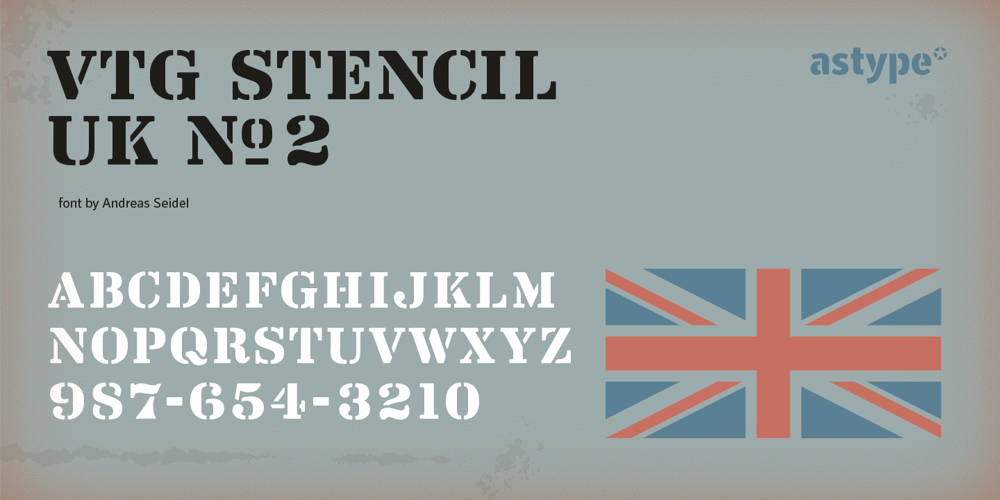
Vtg Stencil UK No. 2 Font Family was designed by Andreas Seidel and published by astype. Vtg Stencil UK No. 2 contains 1 styles and family package options. The Vtg Stencil series of fonts by astype are based on real world stencils. The UK No. 2 design was derived from authentic one inch A2 Roman stencil plates from Great Britain, manufactured around the 1950s.